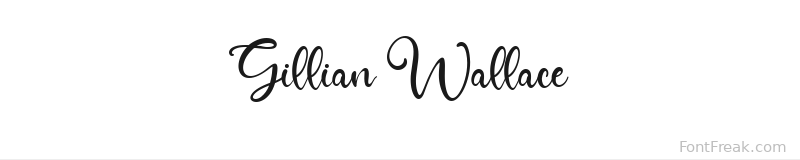
GillianWallace
Gillian Wallace
About GillianWallace
The GillianWallace font, crafted by Kong Font in 2021, is a captivating script typeface that exudes elegance and charm. This font showcases a fluid, handwritten style, characterized by its graceful curves and dynamic strokes. The stroke weight varies gently, creating a pleasing contrast that enhances readability while maintaining a personal touch. The spacing is thoughtfully designed to ensure clarity, making it suitable for various applications.
GillianWallace is perfect for wedding invitations, where its romantic flair can beautifully convey heartfelt sentiments. It's also an excellent choice for branding and logo design, allowing small business owners to establish a unique identity that resonates with their audience. Content creators will find this font ideal for social media graphics and blog headers, as it adds a stylish element that captures attention. Additionally, it can elevate restaurant menus, providing a warm and inviting feel that complements culinary offerings.
The target audience for GillianWallace includes graphic designers seeking to infuse creativity into their projects, small business owners looking for distinctive branding options, and content creators aiming to enhance their visual storytelling. Its versatility makes it a valuable addition to any designer's toolkit.
What sets the GillianWallace font apart is its ability to blend elegance with approachability, making it suitable for both formal and casual contexts. The artistry behind its design allows it to stand out in a crowded market, offering a unique handwriting aesthetic that can breathe life into any project. For those interested in incorporating this stunning typeface into their work, the GillianWallace font free download is readily available, making it accessible for both personal and commercial use.